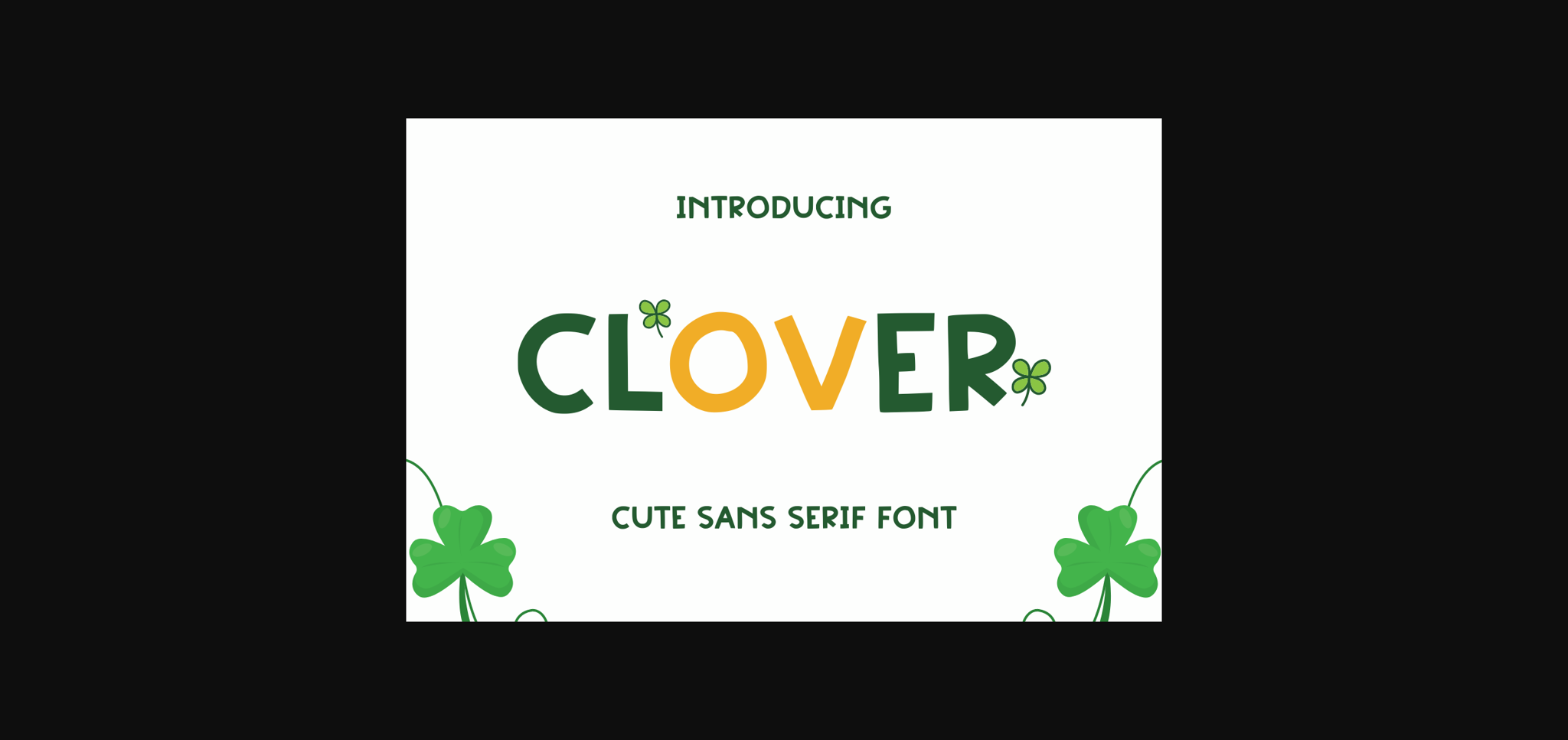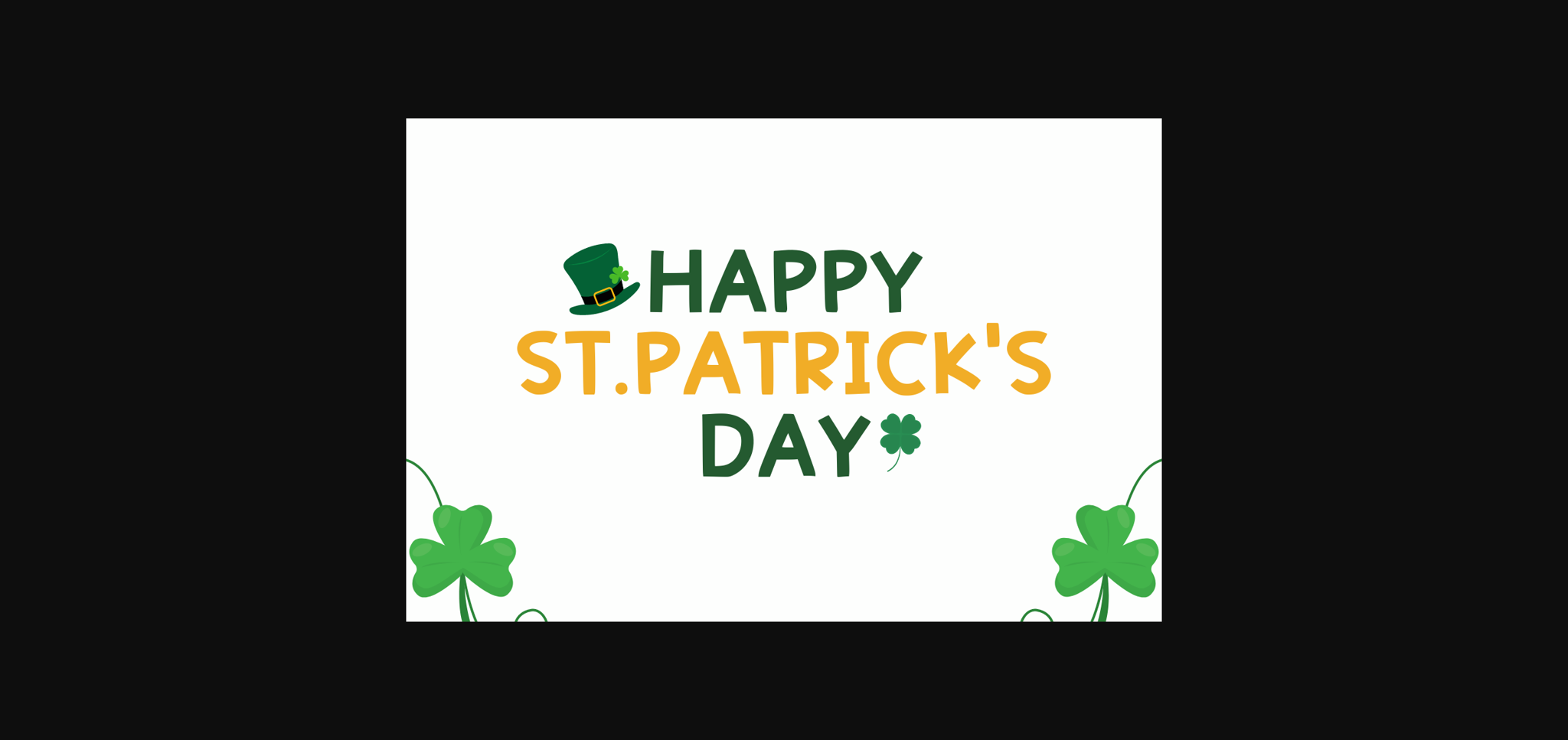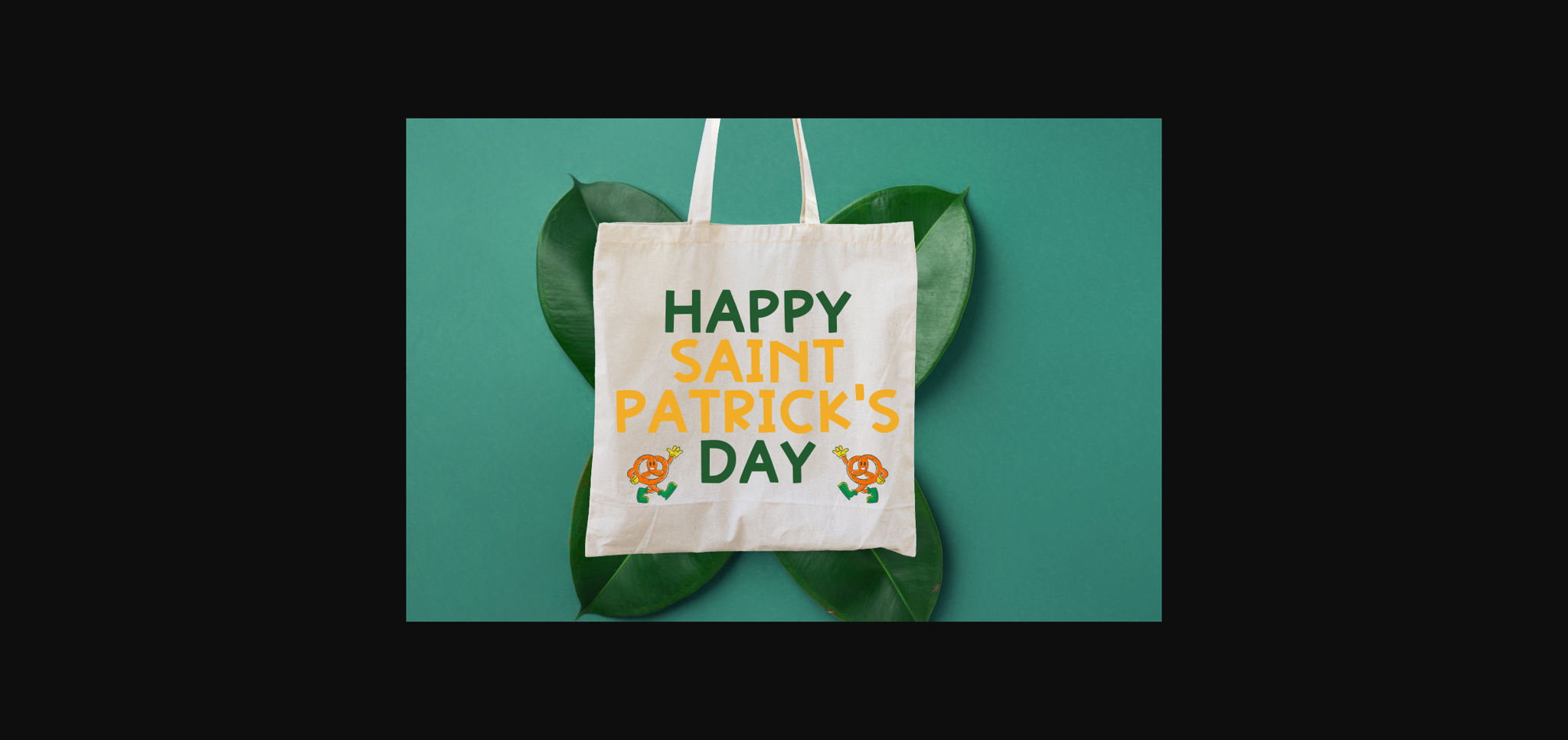
About Clover Font
Clover is a refreshing and tidy sans-serif typeface that embodies simplicity and clarity. With clean lines and gentle curves, it emanates a sense of modernity and elegance. Ideal for various design projects, Clover brings a polished and contemporary touch to any text or layout.